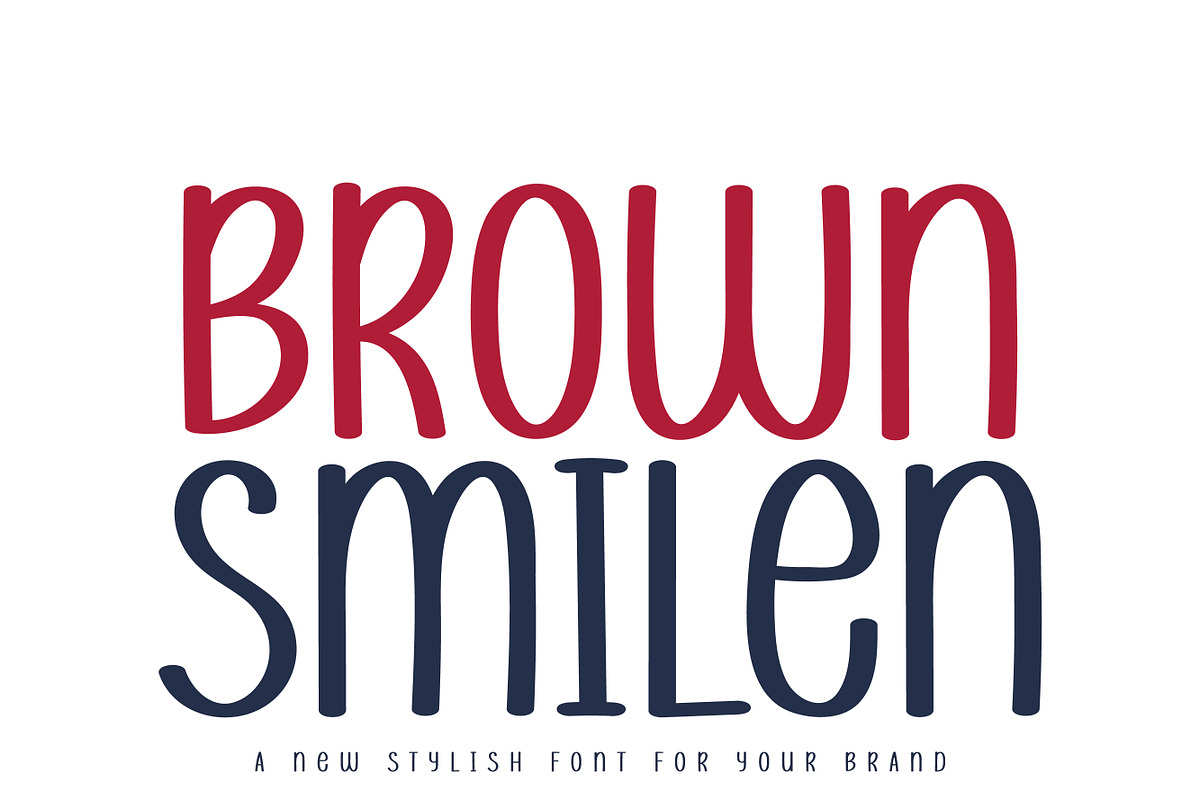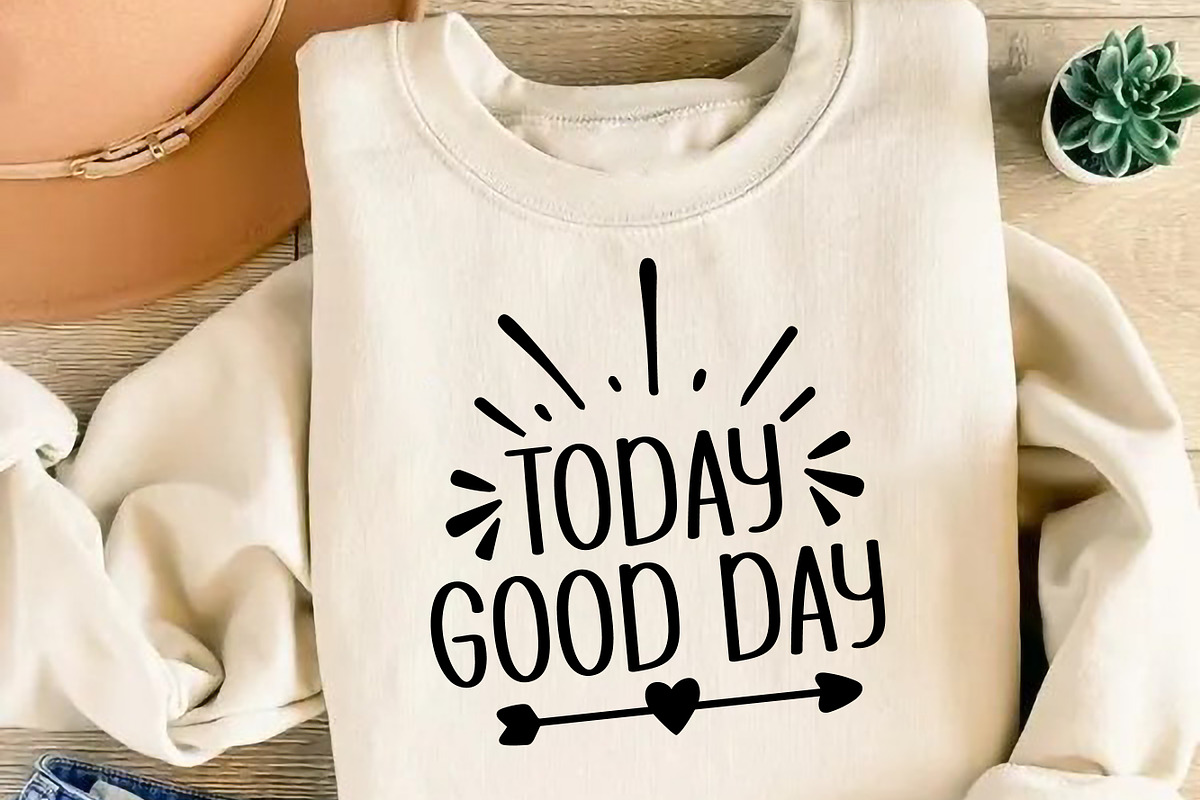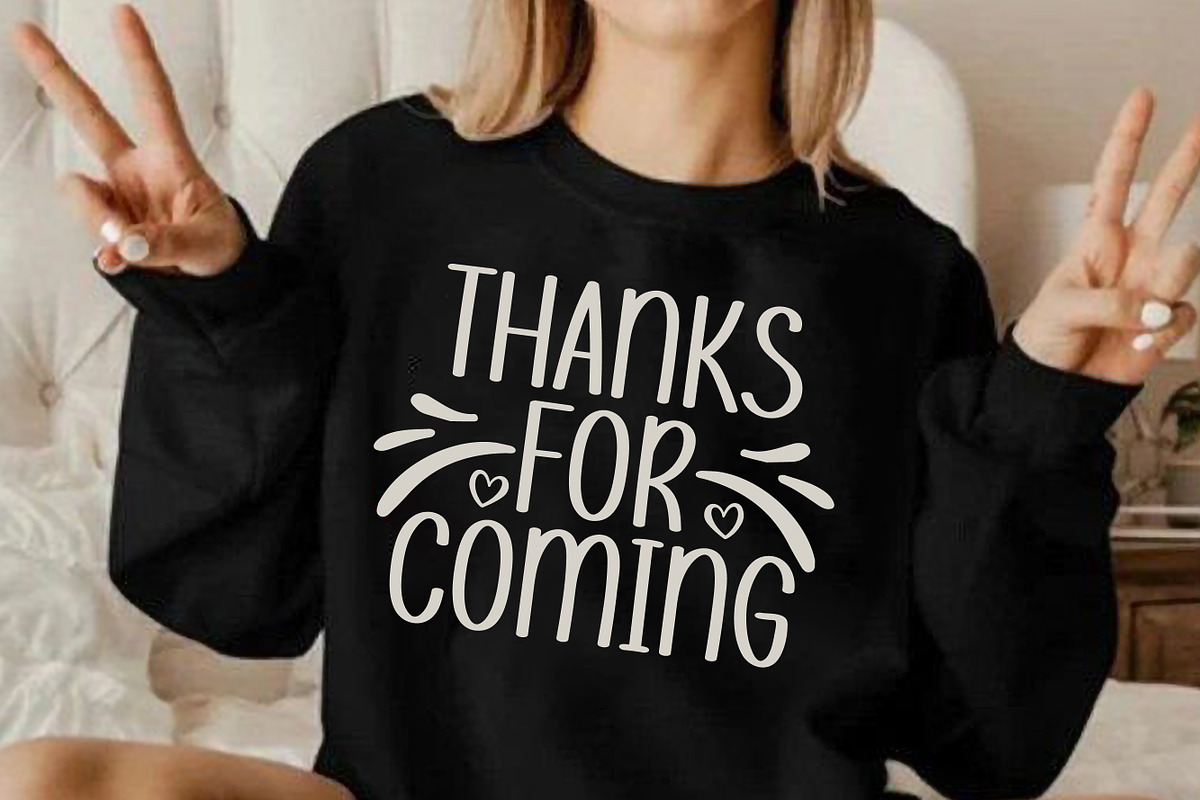
Brown Smilen - Playful
Brown smilen is a fun, handwritten font. It is a festive and happy typeface that captures the spirit of the holiday season. It’s perfect for holiday cards and festive decorations, and holiday-themed projects, giving a personal crafts touch to your designs.